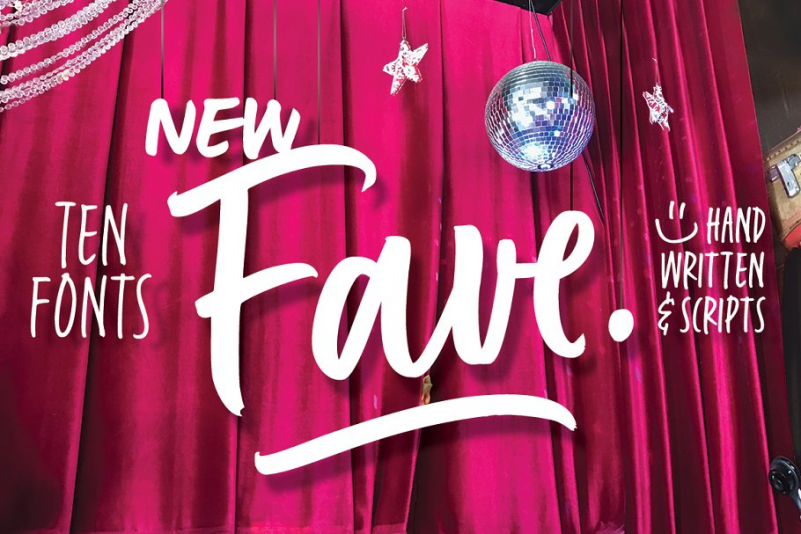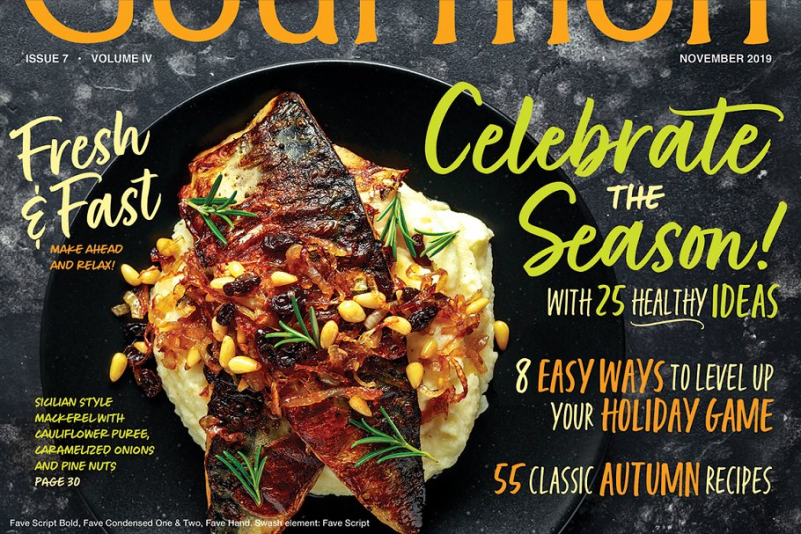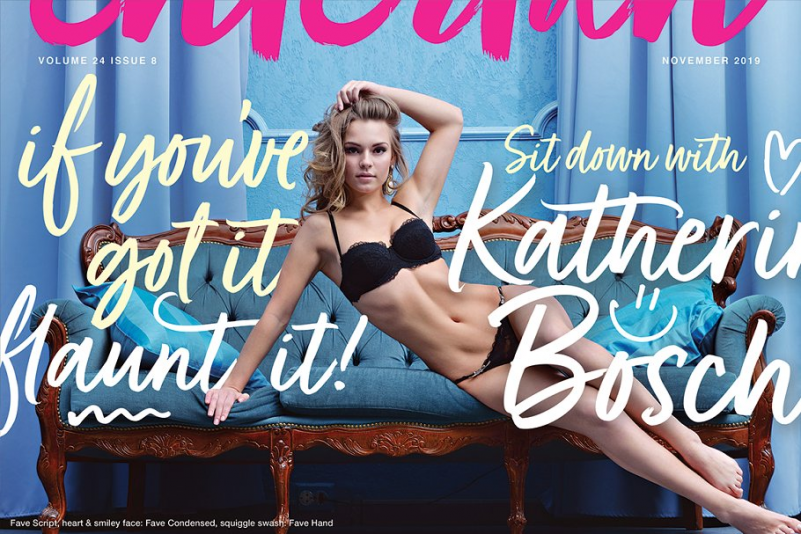
Fave™ Set Font
Sometimes you want to go casual. Sometimes really casual. The casual hand-brushed family Fave™ consists of scripts in two weights with accompanying handwritten fonts that play well together. The family also includes an additional even more informal cousin, Fave Casual Script that comes in two weights with its own even more-casual handwritten counterparts, for a total of ten typefaces spanning the casual spectrum.